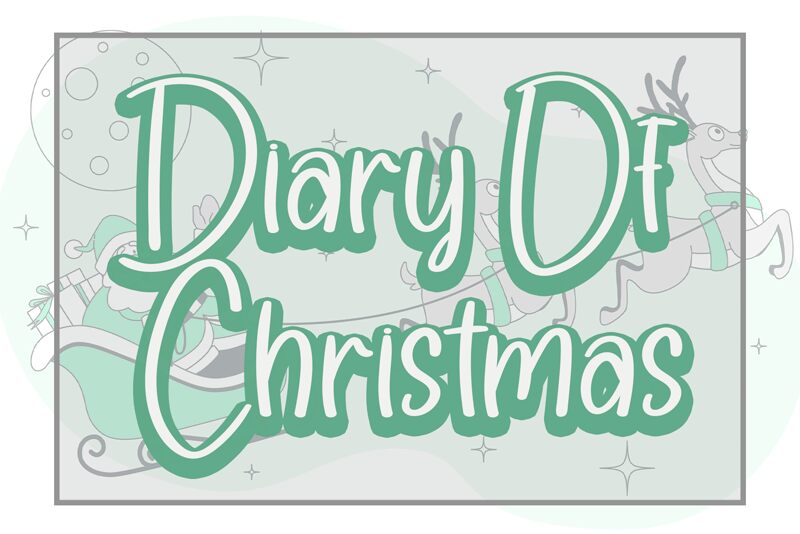
Diary Of Christmas
Diary Of Christmas, designed by Etik Fatimah, is a handwritten font that exudes a semi-light and natural aesthetic. Its elegant strokes and personal touch bring to life the warmth and joy of holiday missives. Perfect for festive projects, this font captures the essence of intimate holiday greetings and cozy winter tales. The semi-light weight lends itself to a delicate, yet readable appearance, making it ideal for personalized cards, invitations, and seasonal marketing materials.
Embrace the charm of Diary Of Christmas for a touch of handcrafted elegance in your creative endeavors.